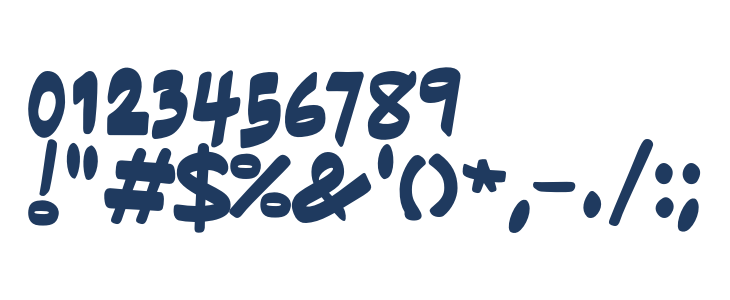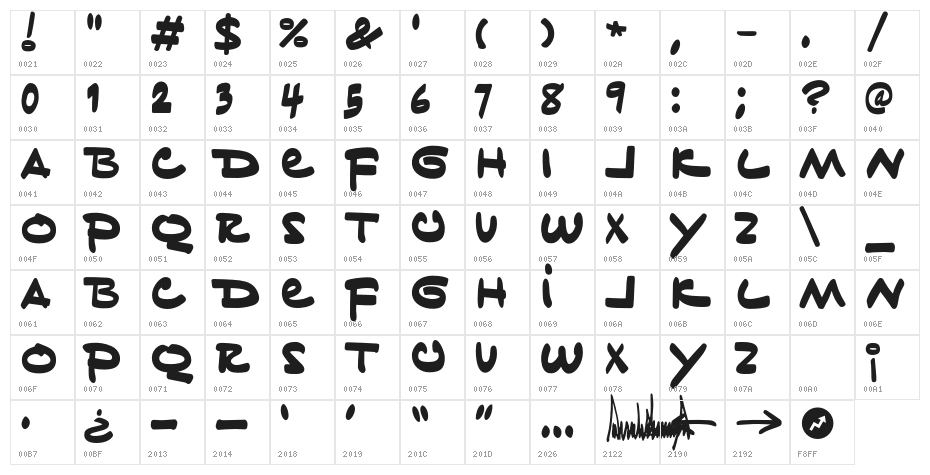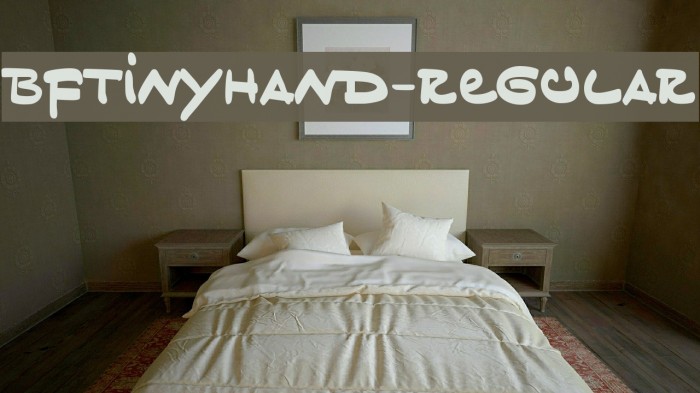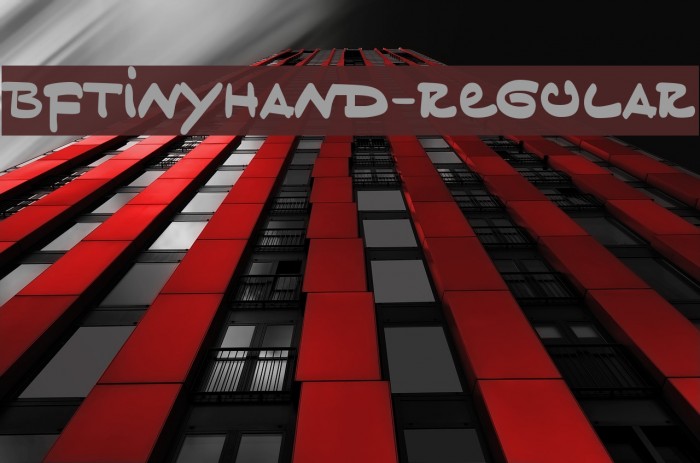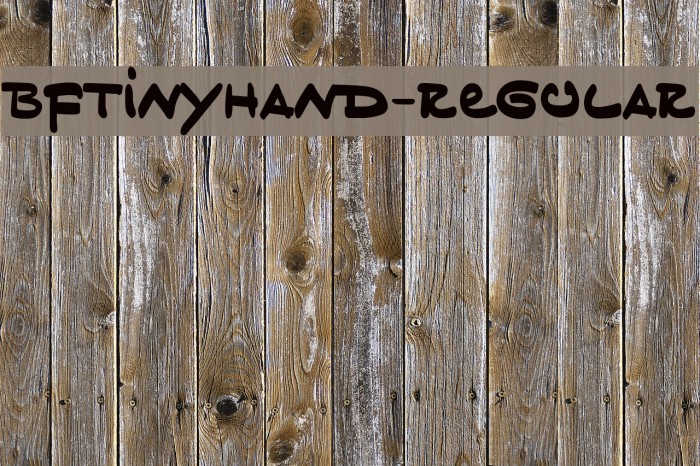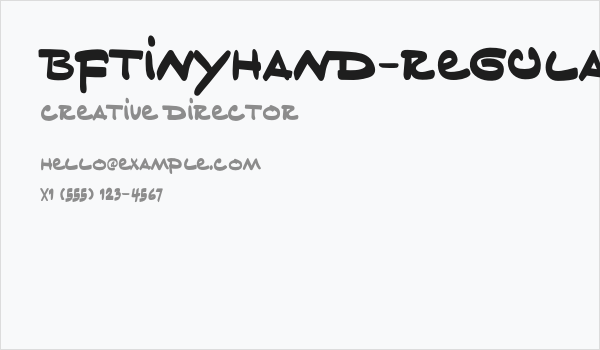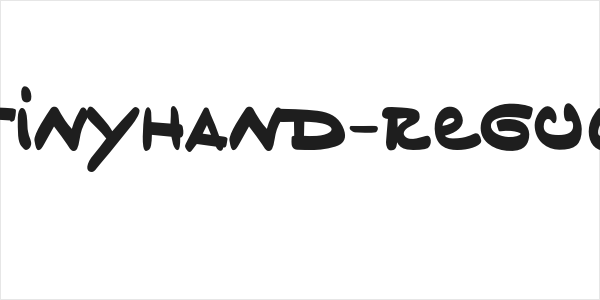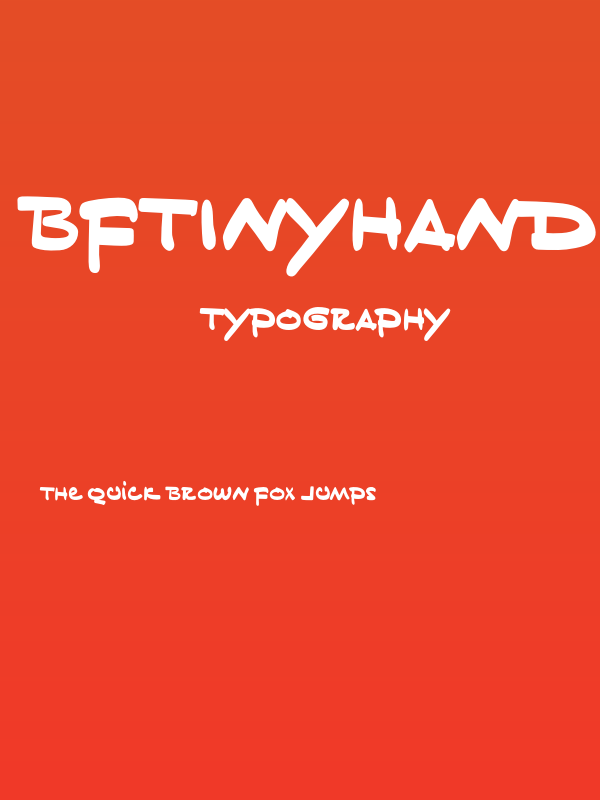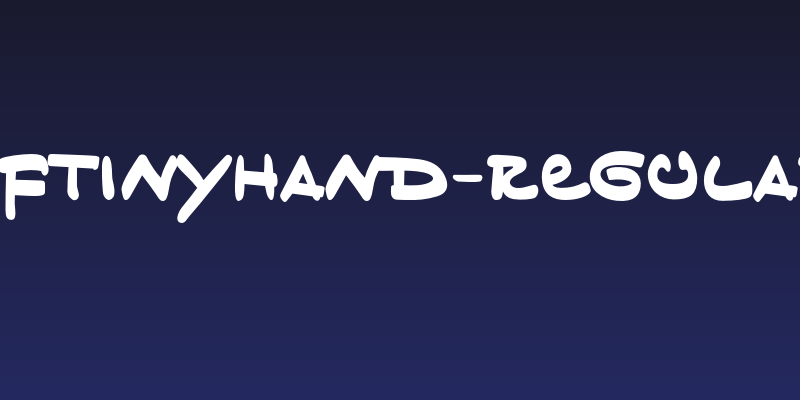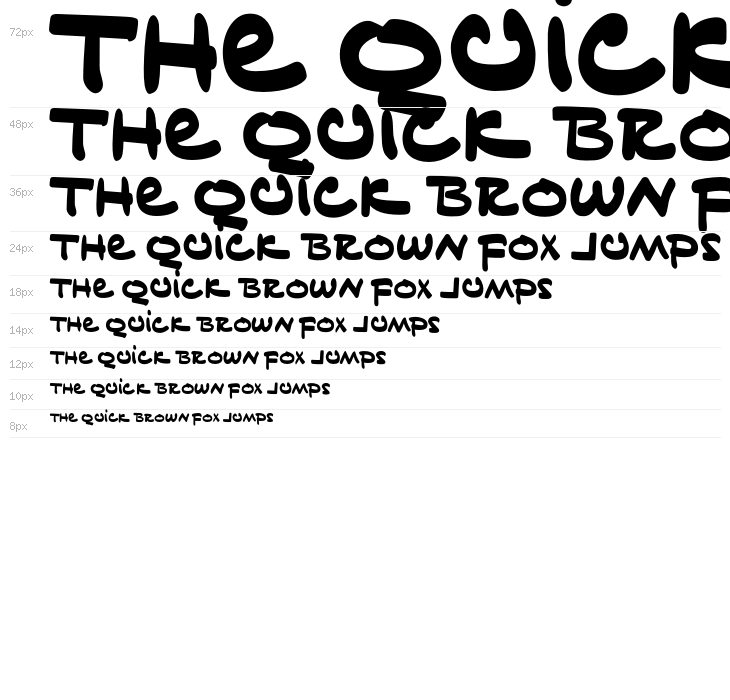
BFTinyHand-Regular Font
BFTinyHand-Regular Description
This font features a playful and bold handwritten style, characterized by its thick strokes and slightly irregular shapes. The uppercase and lowercase letters maintain a consistent flow, with rounded edges and a casual, informal appearance. The numbers and special characters follow the same design ethos, providing a cohesive look across all glyphs. Its boldness and unique style make it stand out, while the slightly uneven lines add a touch of whimsy and personality. This font is ideal for projects that require a fun and approachable aesthetic, capturing attention with its distinctive and lively design.
| Overall Style | Playful, Casual |
| Proposed Projects | Ideal for children's books, playful branding, casual invitations, and creative posters. |